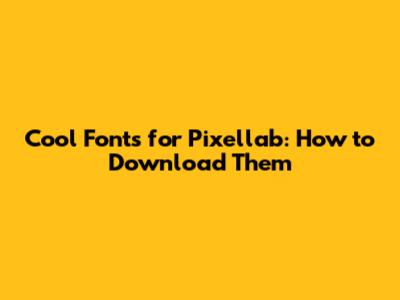
- Readability: Is your text easy to read at a glance? Or do viewers have to squint and struggle to decipher it?
- Legibility: Are the individual letters clearly distinguishable, even in smaller sizes?
- Tone: Does the font match the overall tone and style of your design? Is it serious, playful, elegant, or edgy?
- Consistency: Are you using fonts consistently throughout your design? A consistent font palette can help create a cohesive and professional look.
- Target Audience: Does your font resonate with your target audience? A font that appeals to teenagers might not be the best choice for a design aimed at senior citizens.
- Google Fonts: This is a treasure trove of free, open-source fonts that you can use in any project, commercial or personal. Google Fonts offers a wide variety of styles, from classic serifs to modern sans-serifs, and everything in between. Plus, it's super easy to use – just download the font files and install them on your device. Google Fonts is an excellent resource for high-quality, free fonts that are easy to access and use in Pixellab.
- Dafont: Dafont is another popular website with a massive collection of fonts, many of which are free for personal use. Be sure to check the license before using a font in a commercial project, as some fonts may require a license purchase. Dafont is a great resource for finding unique and creative fonts that might not be available elsewhere. However, always verify the usage rights to ensure compliance with the author's terms.
- Fontspace: Similar to Dafont, Fontspace offers a wide selection of free fonts, with clear licensing information for each font. You can easily filter fonts by category, style, and license type, making it easy to find what you're looking for. Fontspace provides a user-friendly interface for browsing and downloading fonts, with clear indications of licensing terms to avoid copyright issues.
- Creative Market: If you're willing to spend a little money, Creative Market is a fantastic resource for premium fonts. You'll find high-quality, professionally designed fonts that can really elevate your designs. The fonts on Creative Market often come with extra features, such as alternate glyphs and multilingual support. Creative Market offers high-quality premium fonts, often with extra features and extensive character sets, ideal for professional design projects.
- MyFonts: Another great option for premium fonts, MyFonts offers a vast selection of fonts from various foundries and designers. You can even use their WhatTheFont tool to identify fonts from images. MyFonts is a comprehensive marketplace for premium fonts, offering a wide variety of styles and a handy font identification tool for finding similar fonts.